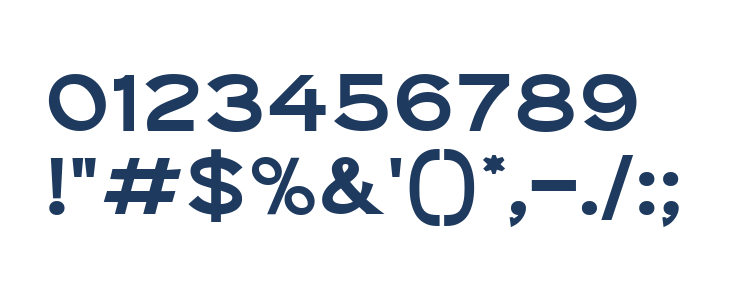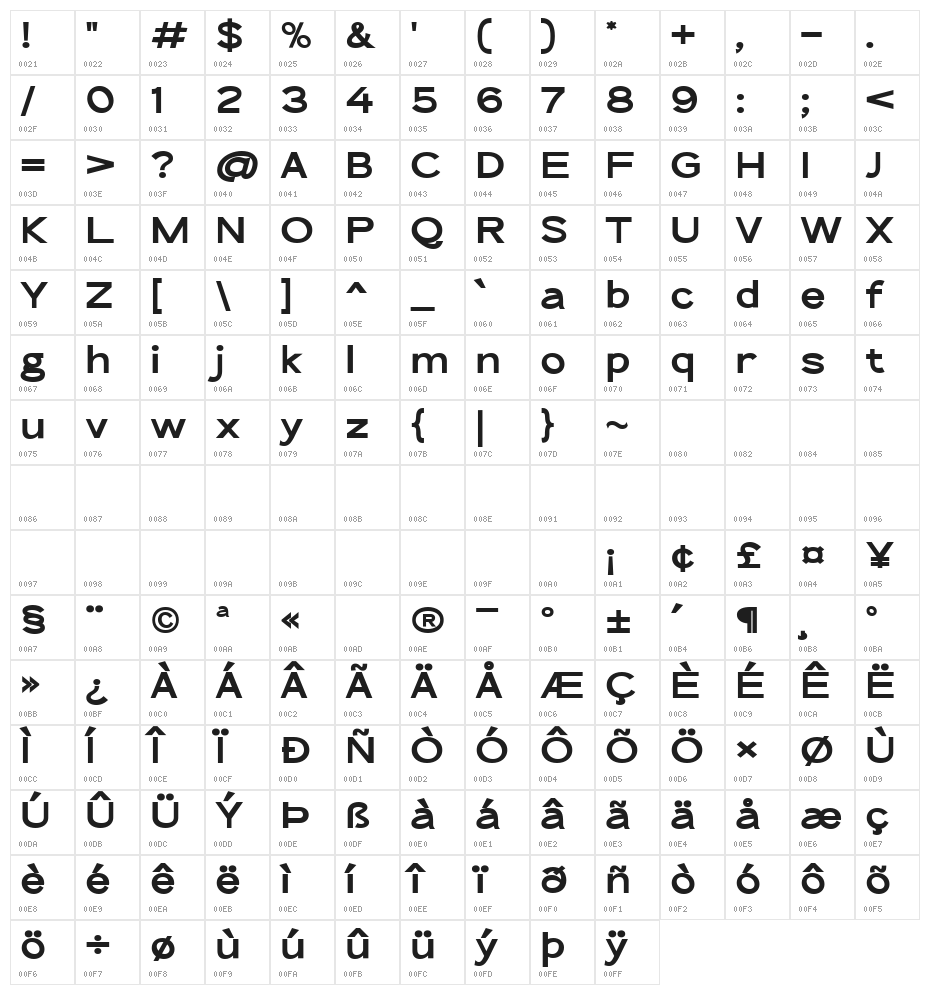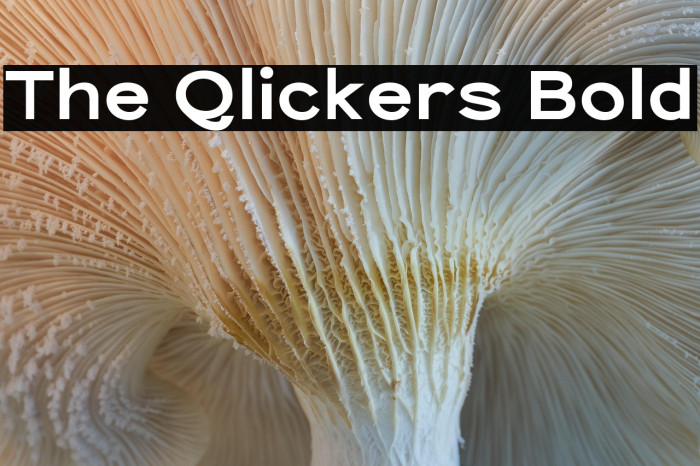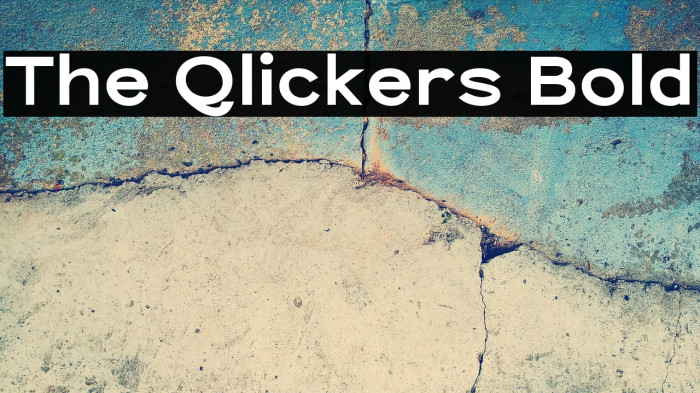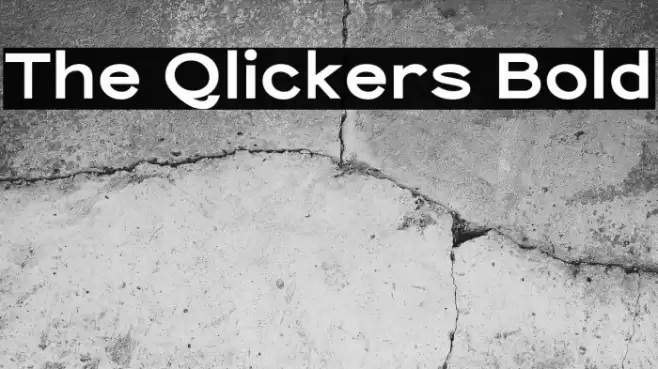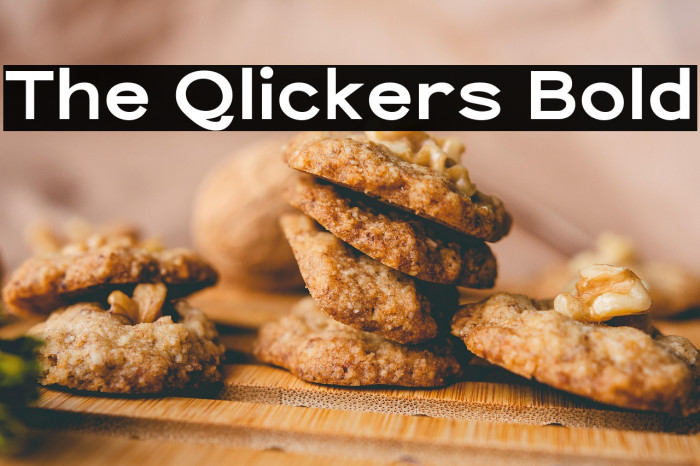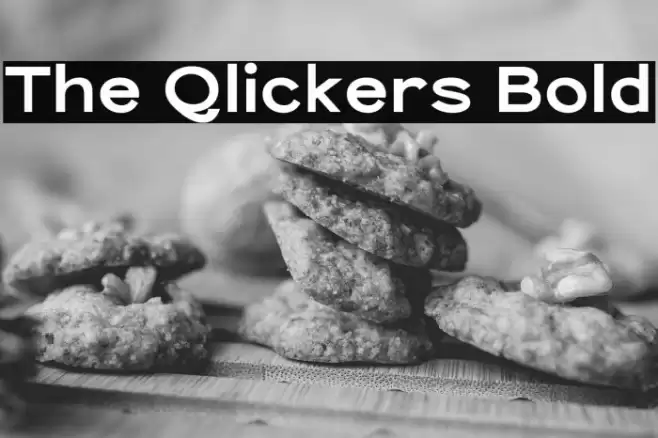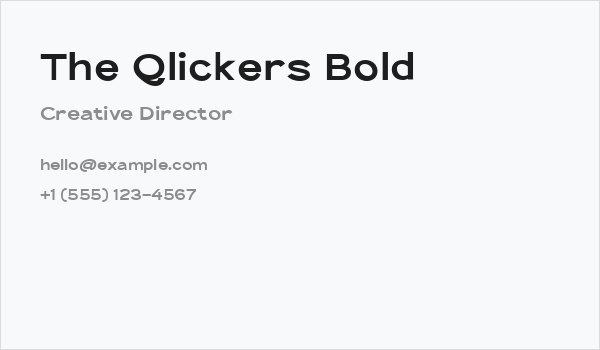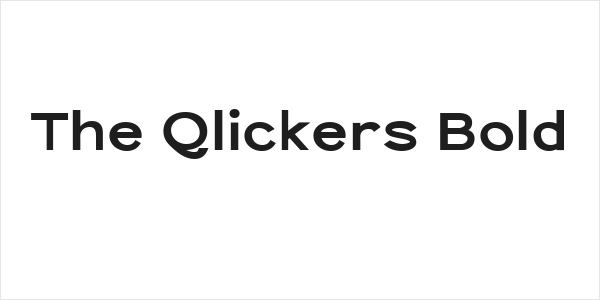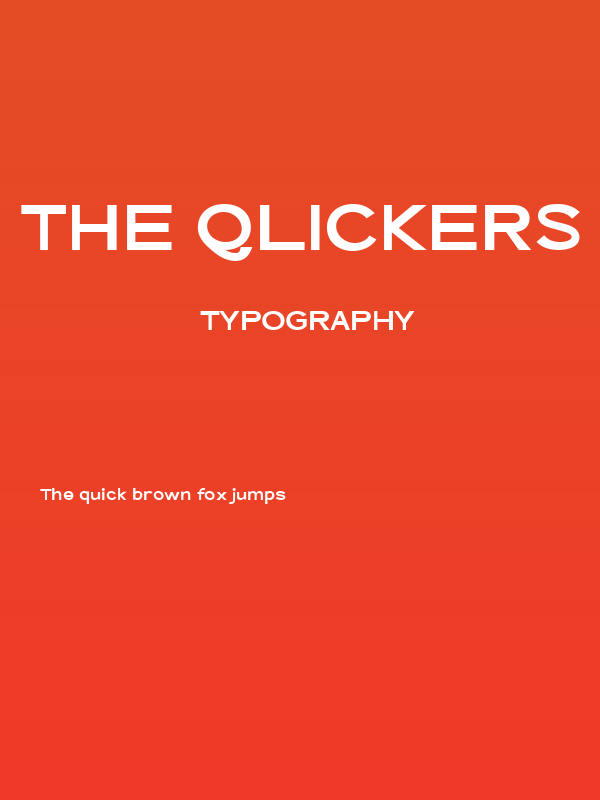
The Qlickers Bold Font
The Qlickers Bold Description
This font exhibits a bold, modern sans-serif style with clean lines and a strong presence. The characters are evenly weighted, providing a uniform appearance across both uppercase and lowercase letters. The numerals are clear and easily distinguishable, making them suitable for various applications. Special characters are well-defined, maintaining the font's overall aesthetic. The design is straightforward yet impactful, making it versatile for different design needs.
| Use Case | Headlines, Logos, Branding |
| Proposed Projects | Ideal for branding, advertising, headlines, and digital media where a strong, modern look is desired. |